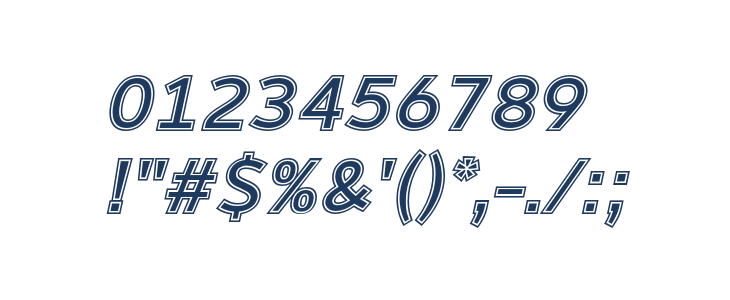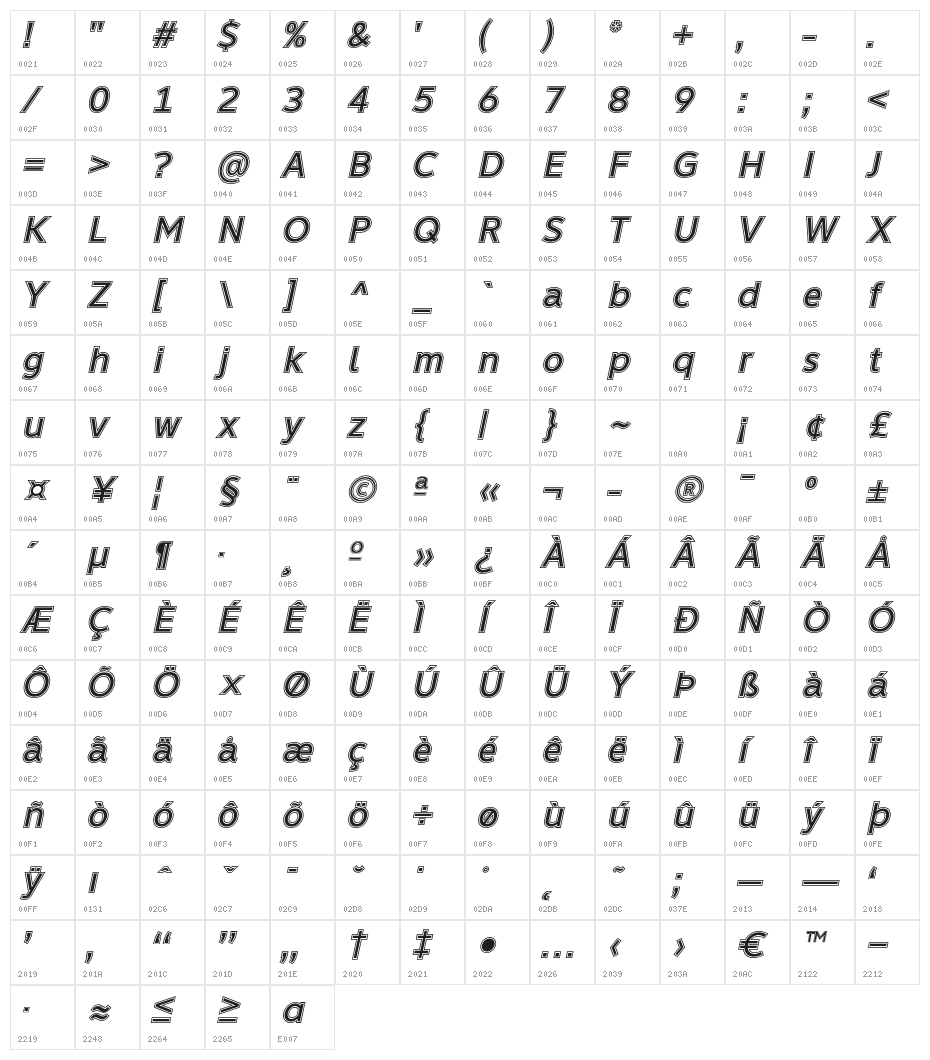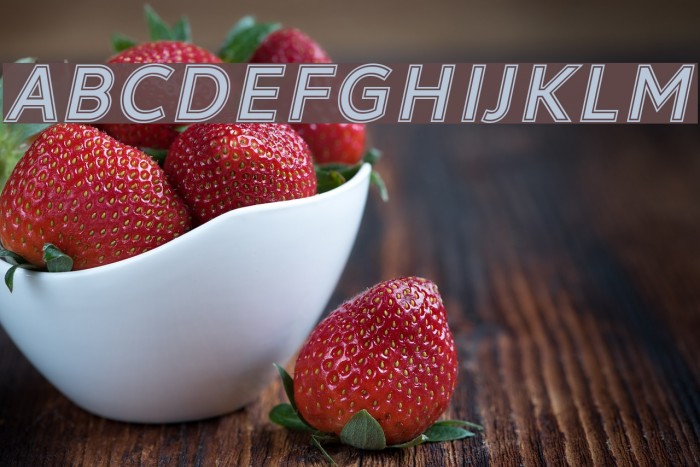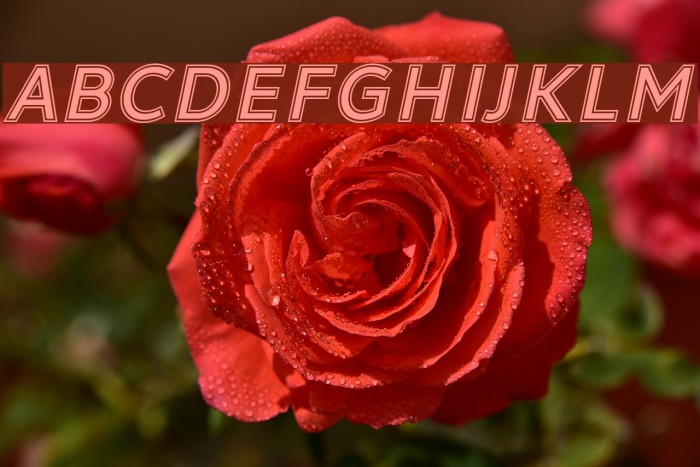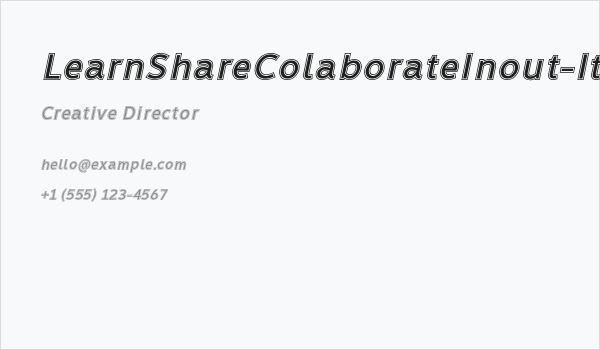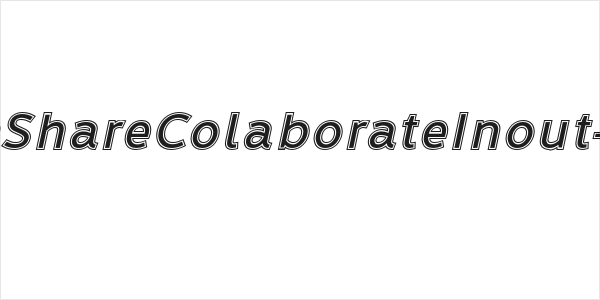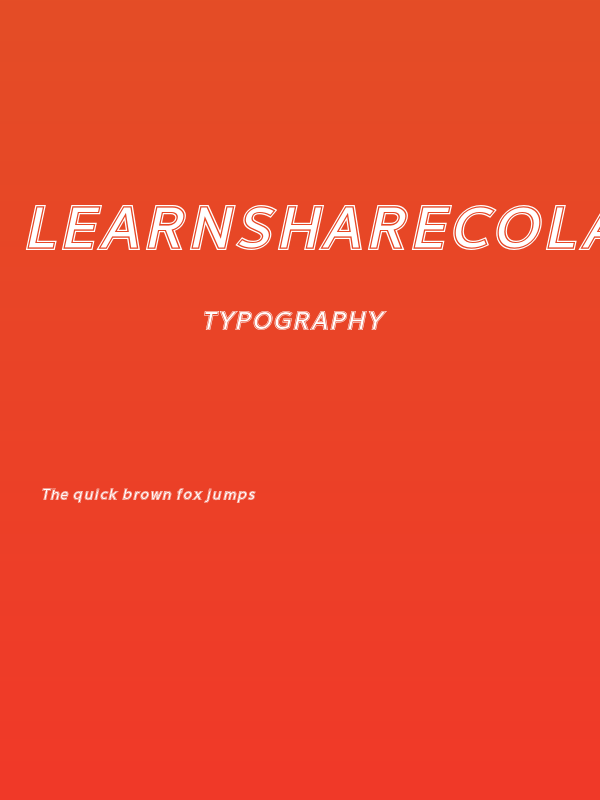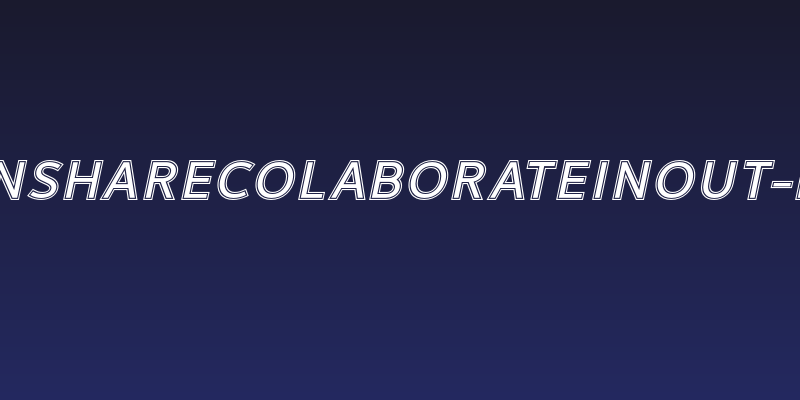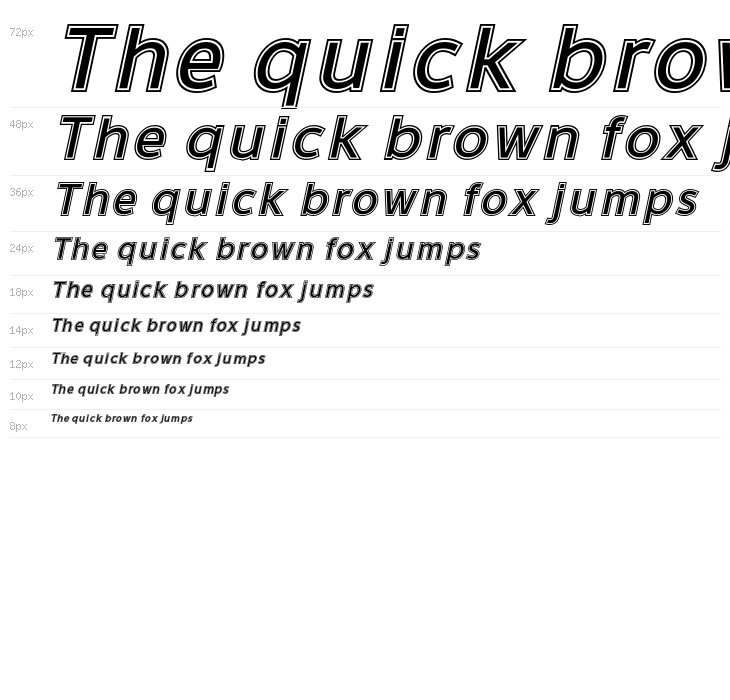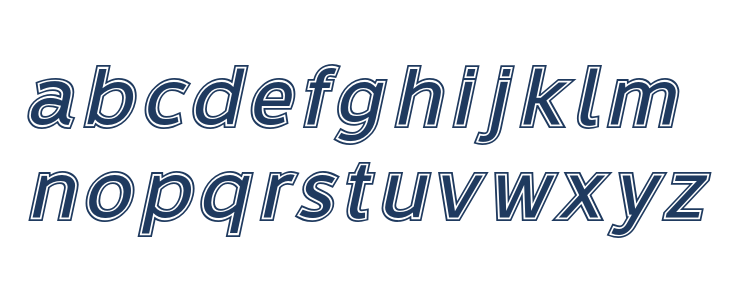
LearnShareColaborateInout-Italic Font
LearnShareColaborateInout-Italic Description
This font features a bold, italicized style with a strong presence due to its thick, outlined characters. The uppercase and lowercase letters maintain a consistent slant, giving a sense of motion and dynamism. The numbers and special characters are designed to match the alphabet's boldness and slant, ensuring uniformity across all elements. The font's outline adds a layer of depth, making it stand out in any design. Its clean lines and modern aesthetic make it versatile for various applications.
| Proposed Projects | Ideal for branding, headlines, posters, and any design needing a bold, modern touch. |